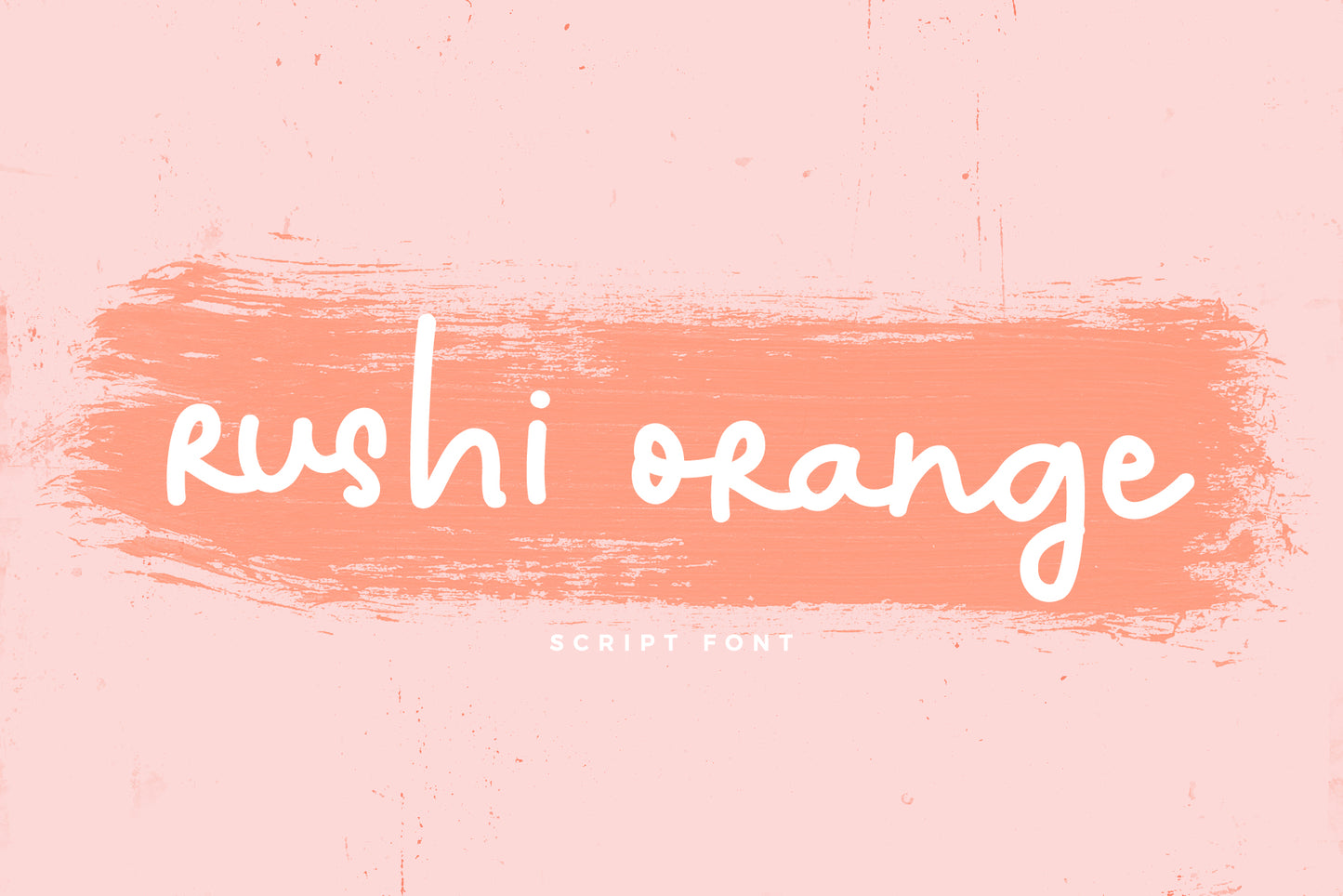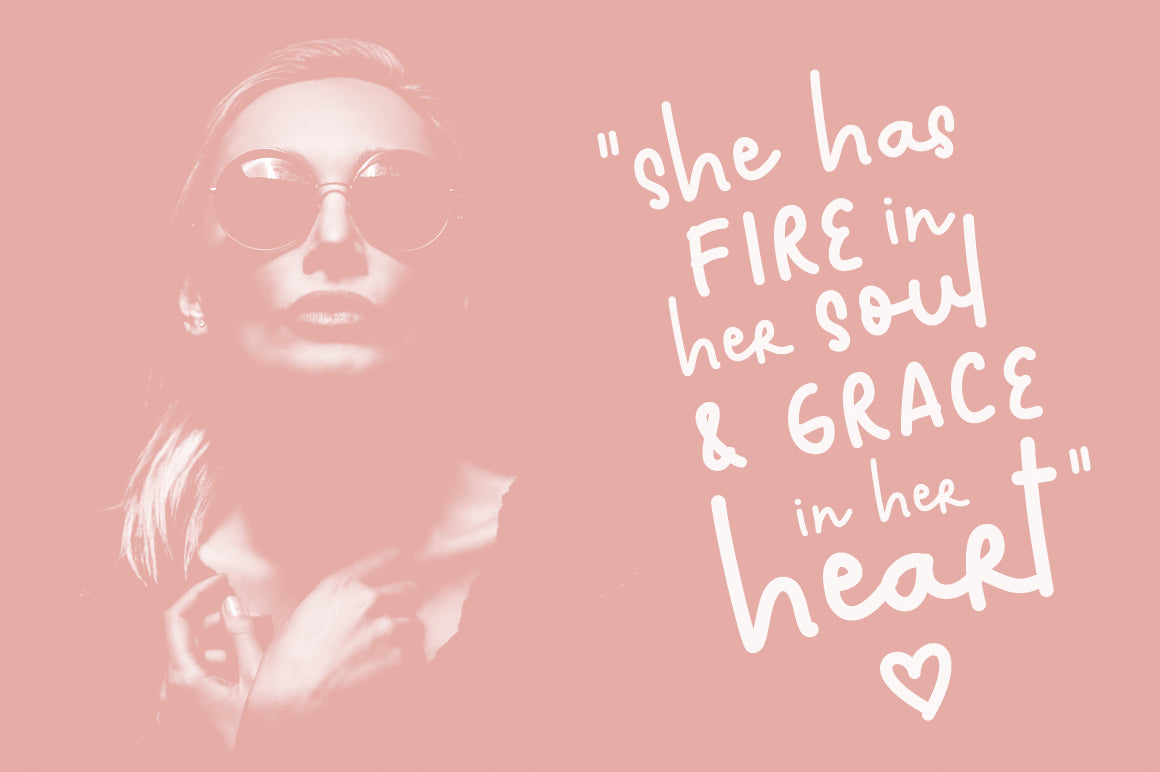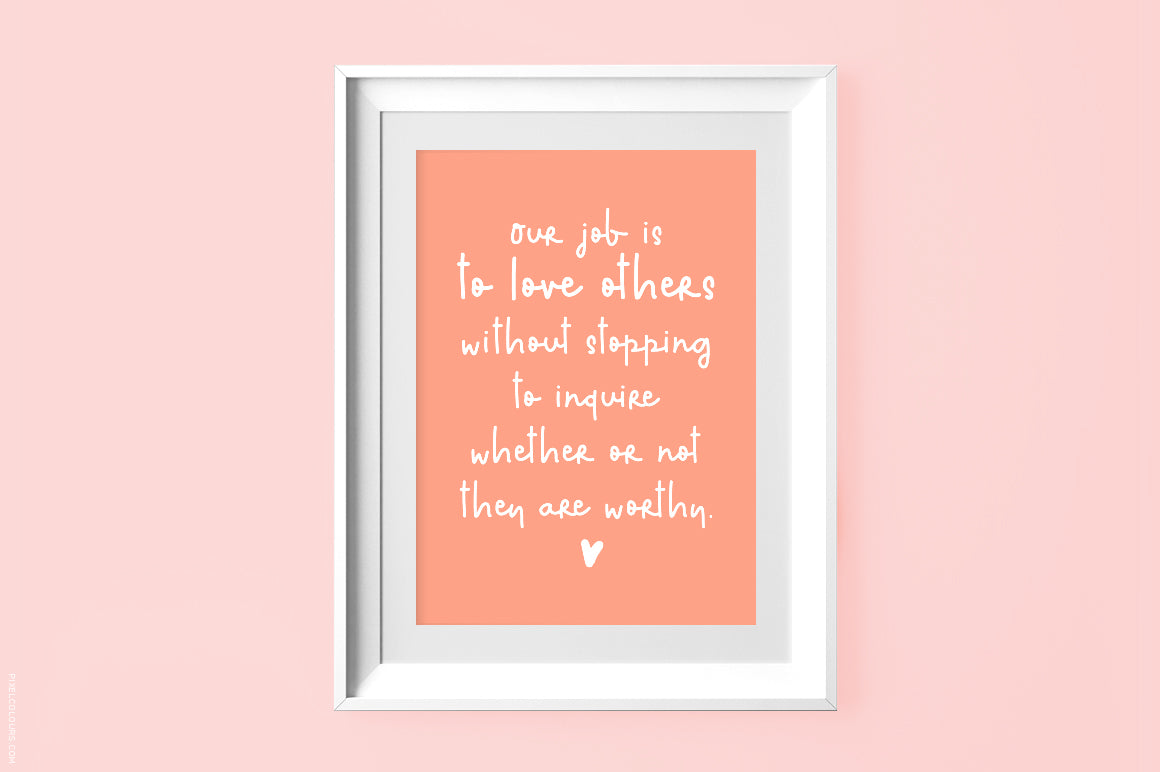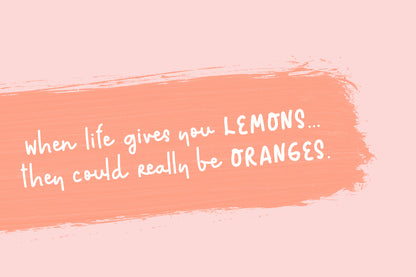
Rushi Orange Font
Rushi Orange is a playful monoline script font that brings a cheerful, handwritten feel to any design. With smooth curves and a friendly vibe, it’s perfect for creative projects that need a bit of fun and personality. This typeface is easy to use and ideal for everything from social media graphics to product packaging.
Whether you're designing for personal or commercial use, this handwriting font adds a lighthearted charm. It's a great design resource to keep on hand when you want something casual, cute, and handcrafted.
Ideas for use
- Colorful Instagram quotes or Pinterest pins
- Children’s party invites or birthday cards
- Playful logos, labels, or branding projects
- Printable wall art with a happy, handmade feel
- Packaging for small businesses or handmade products
- Planners, journals, and creative scrapbooking